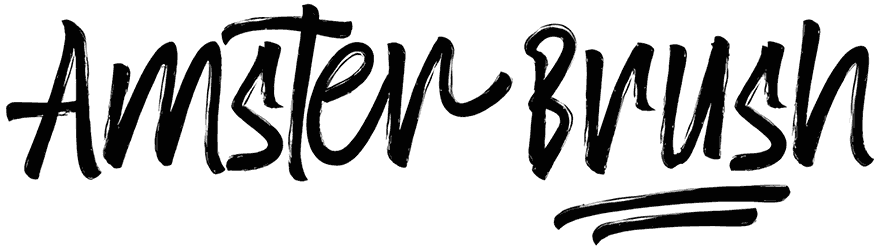
Amster Brush Font
Amster Brush will let your imagination fly and push a delicate touch of natural handwritten combination. You can include this brush font in personal projects that require pure human emotions; posters, quotes, urban, and so on.
Also, this script font with two various styles ignites the power to enhance your design in a gorgeous way. So if you want to bring magnificence and perfection to your coming illustrations, keep this A-Z versatility in your toolbox.